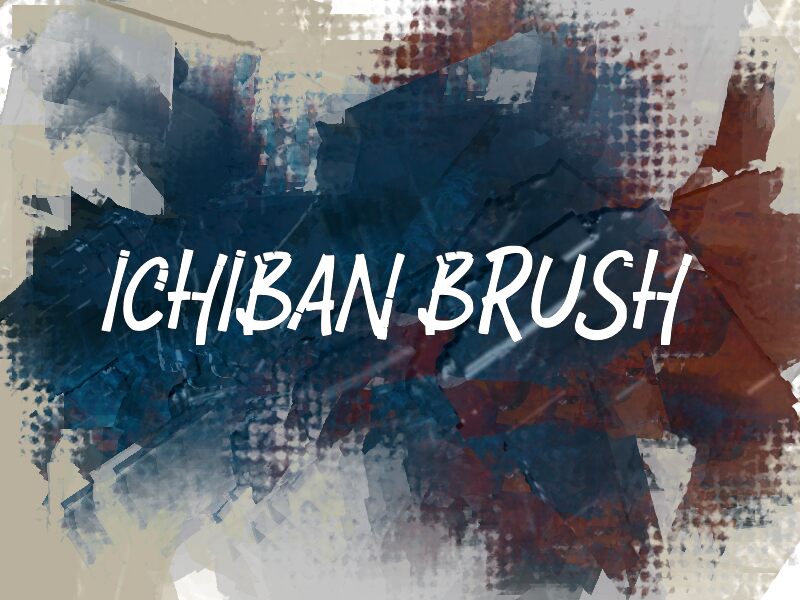
ICHIBAN BRUSH
Ichiban Brush font is a brush script typeface by wep with artistic flair and modern vibe. It has an expressive nature that gives it the casual feel suitable for typing fun texts. Each letter of this font presents personality, energy, and character that supports its styling.